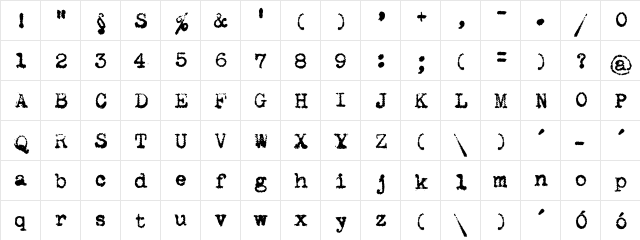
Maszyna Royal Dark Regular Font Preview
Maszyna Royal Dark Regular
Design Context for Maszyna Royal Dark Typeface
Maszyna Royal Dark takes a measured approach to typography — its balanced proportions and neutral character make it a reliable workhorse for both digital and print work.
Pro Tip: Use Maszyna Royal Dark in both headline and body roles to test its range before committing to a single application.